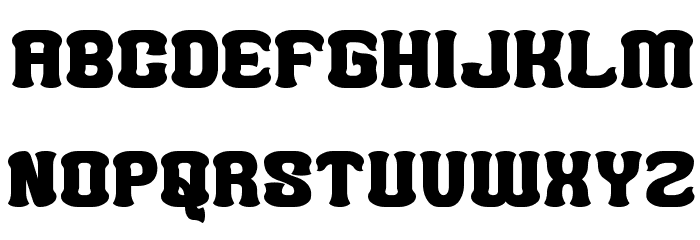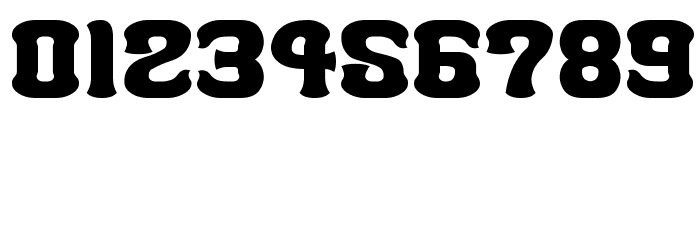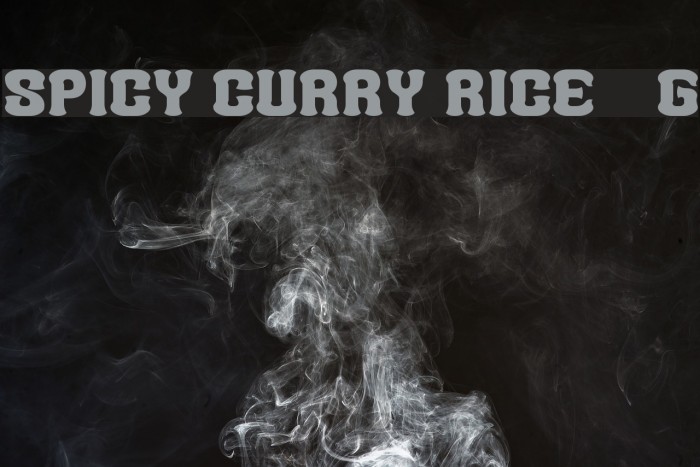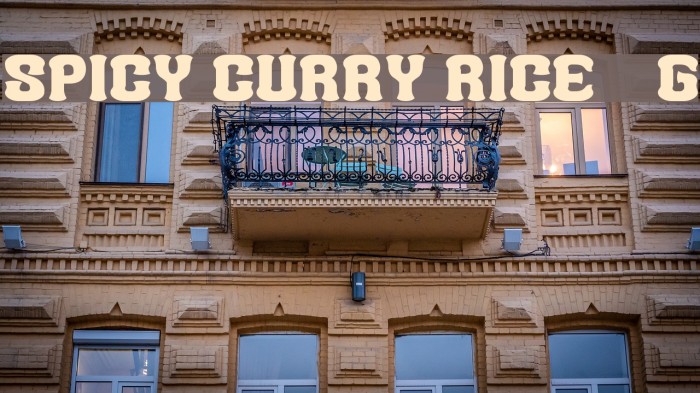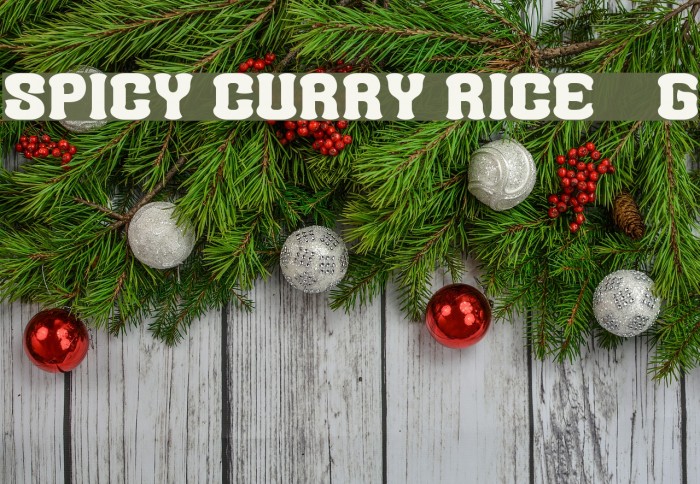
Spicy Curry Rice__G Font
This font features a bold and robust design with thick, rounded strokes and a playful, decorative style. The characters are wide and have a strong presence, making them highly legible and impactful. The uppercase letters exhibit a uniform height, while the numbers maintain a consistent style that complements the alphabet. The font's unique character is highlighted by its slightly whimsical curves and edges, which add a touch of personality and flair. This typeface is ideal for projects that require a bold statement and can easily capture attention with its distinctive appearance.
A bold, decorative font with thick, rounded strokes and playful curves.
- Font: Spicy Curry Rice__G
- Proposed Projects: Ideal for posters, headlines, branding, and any design needing a bold, eye-catching typeface.
- Width: Expanded